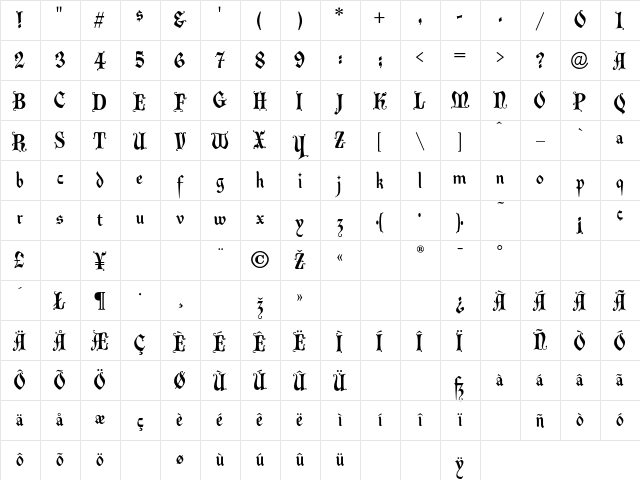
Malvern Regular
Foundry: Digitized by Dan X. Solo. Software Dover Publications, Inc
Design Context for Malvern
Malvern is a composed and adaptable typeface that performs quietly and consistently across a wide range of design contexts.
Who designed the Malvern Regular font?
This font was published by Digitized by Dan X. Solo. Software Dover Publications, Inc. Check the technical specs section for copyright and designer details.